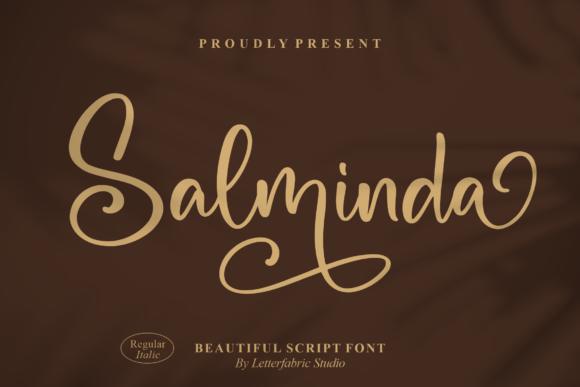
Unleash the power of Salminda Font, the captivating script calligraphy typeface that will redefine your design endeavors. Let its elegant curves and distinctive personality elevate your projects to unprecedented heights.
Step into a world of creativity where Salminda's enchanting flow will captivate your audience. Each letter dances harmoniously, creating a symphony of visual delight. Its versatility knows no bounds, effortlessly adapting to a myriad of design needs.
Craft logos that radiate professionalism and sophistication, where each stroke of Salminda commands attention. Let your branding soar with a touch of elegance that speaks volumes about your impeccable taste. Design covers that ignite curiosity and leave a lasting impression, with Salminda's captivating allure.
Transform your posters into works of art that demand admiration. Salminda's ability to capture the essence of emotion through its graceful lines will evoke a symphony of sensations in your audience.
The possibilities are endless with Salminda Font. Its PUA-encoded nature grants you effortless access to a treasure trove of glyphs and ligatures. Embrace the freedom to unleash your creativity without limitations.
Elevate your resume and online presence with Salminda's professional touch. Its sophisticated charm will make your application stand out from the crowd, showcasing your attention to detail and discerning eye for design.